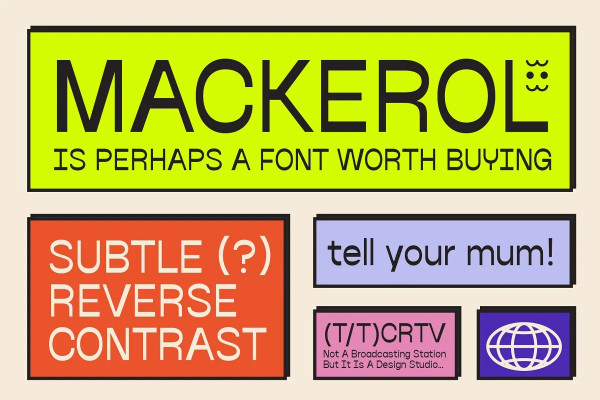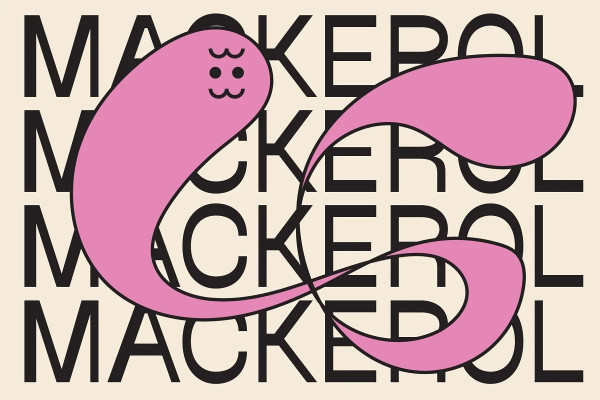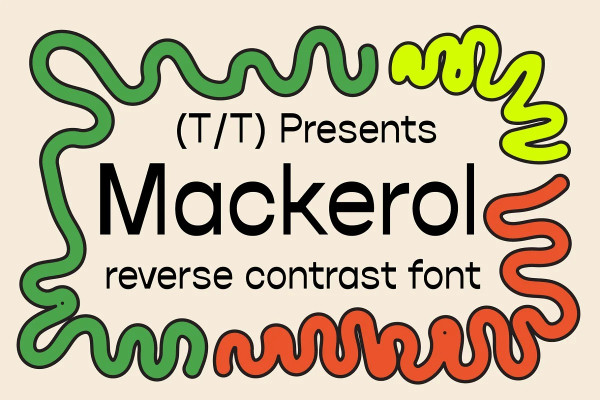
Mackerol Font
Mackerol Font is a reverse contrast font that is built for titles, display, headlines, and long text. Mackerel is a modern take on a quirky font style that will add a bit of a playful personality to your design. If you are working on branding, logos, magazines, instagram, posters or whatever Mackerol is your guy if you are wanting to get that fun cool payed back personality right.